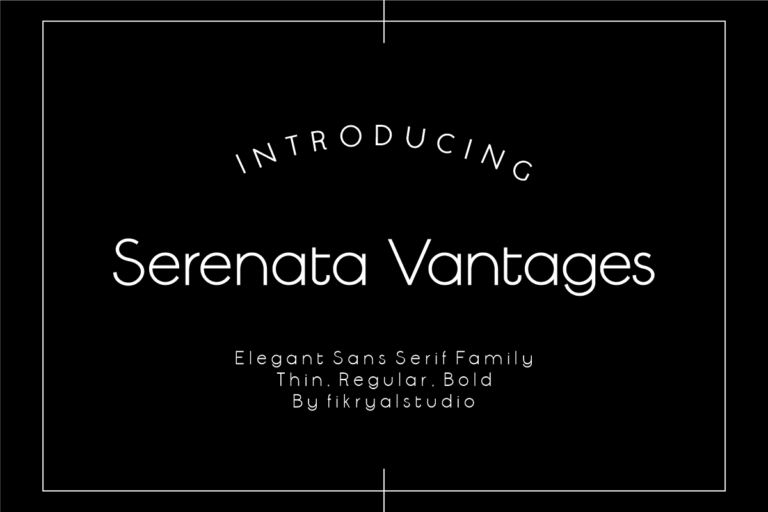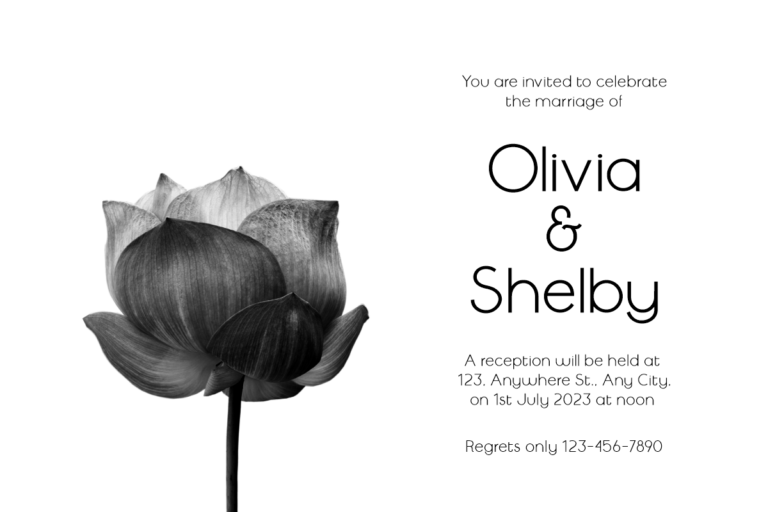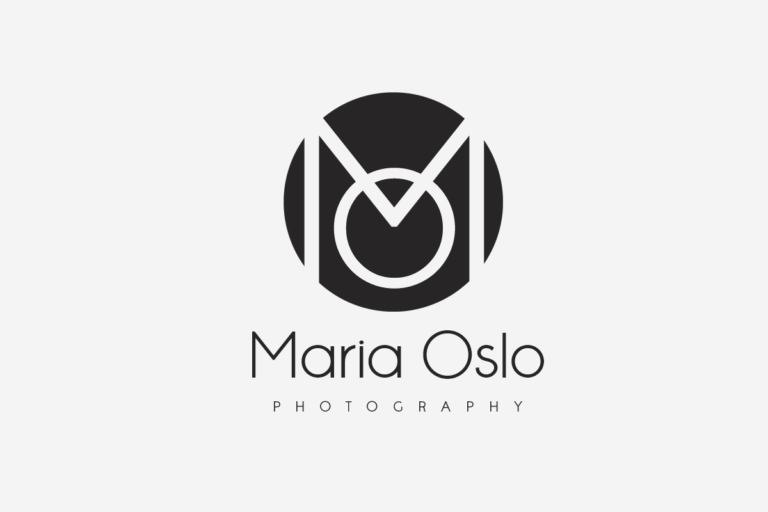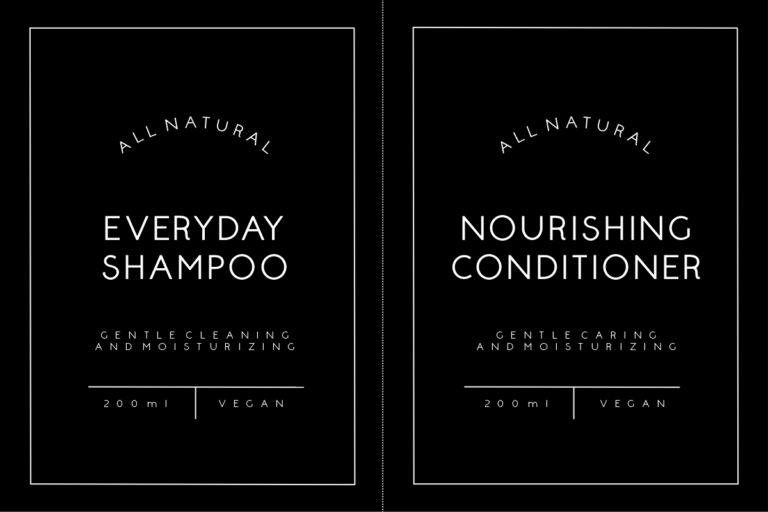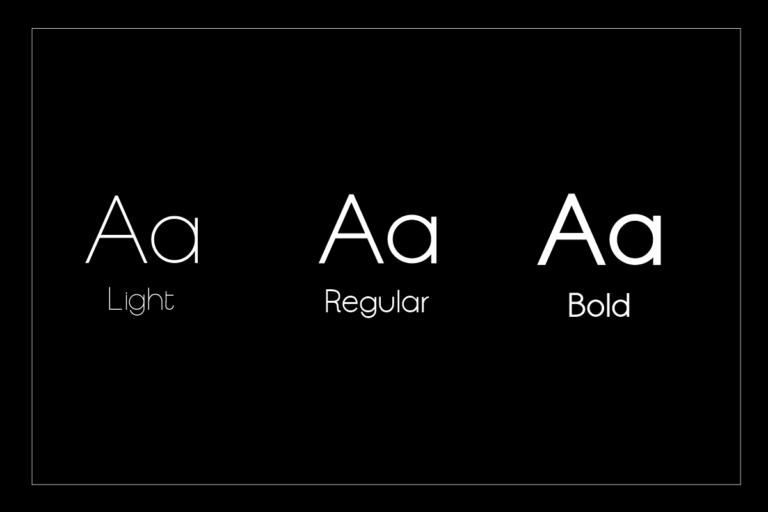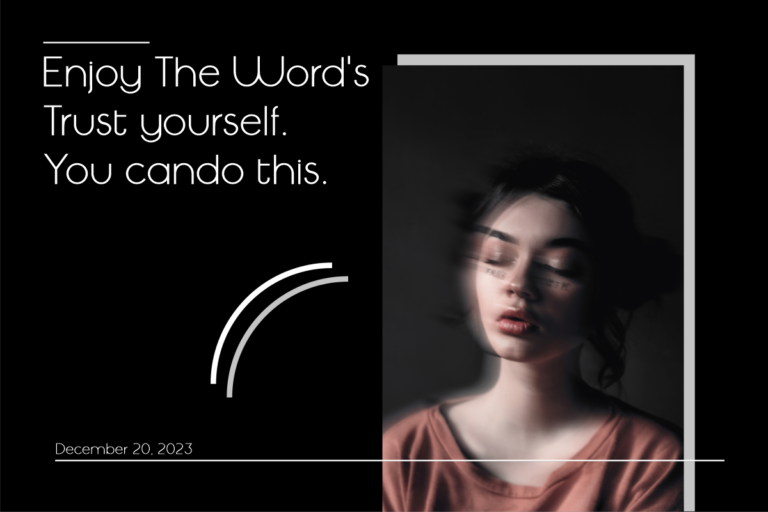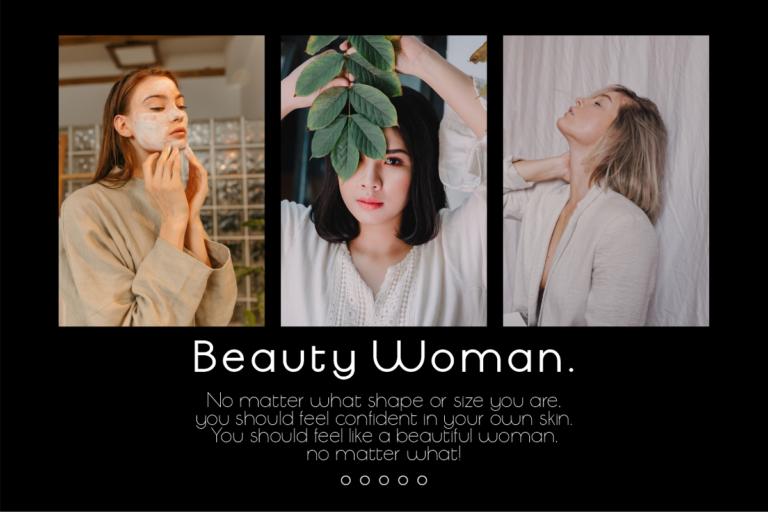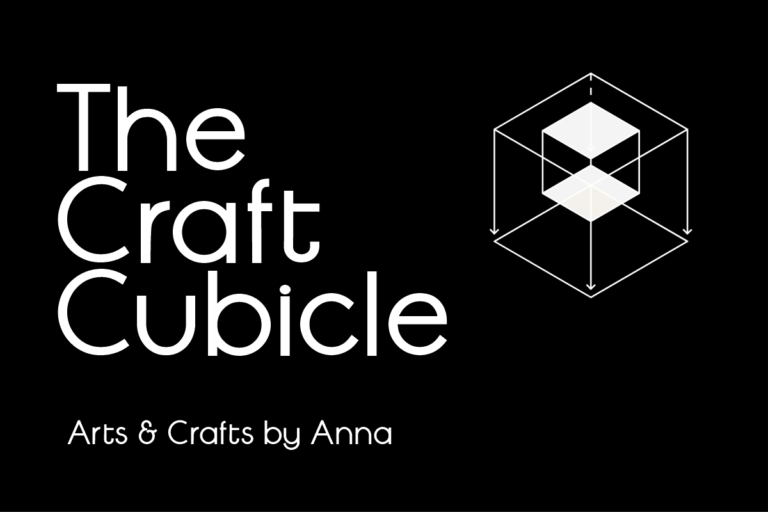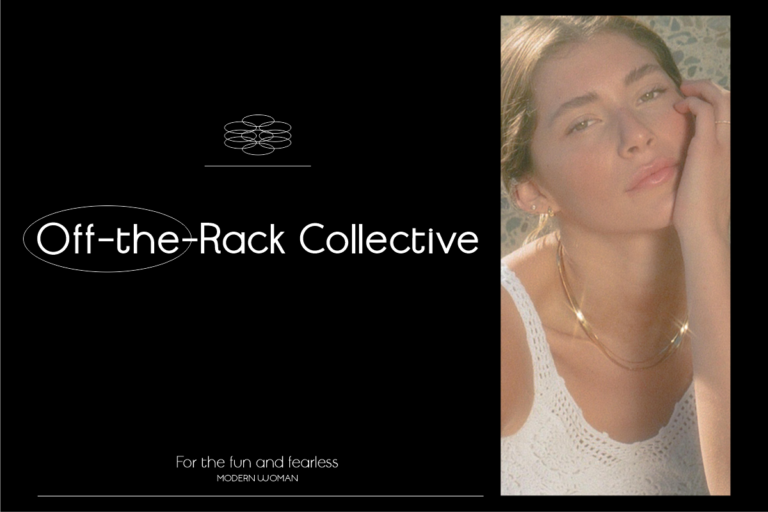
- Serenata Vantages – Elegant Sans
Serenata Vantages is a sophisticated and elegant sans-serif font that exudes modernity and refinement. With its clean lines and well-proportioned letters, this font is perfect for a wide range of design projects, from branding and advertising to editorial and web design.
The font features a range of weights, from thin to bold, giving you the flexibility to create both delicate and bold designs. The characters are beautifully crafted with subtle curves and angles, creating a sense of fluidity and balance.
Serenata Vantages is perfect for designs that require a touch of class and sophistication, such as luxury branding, high-end fashion, and editorial publications. It is also ideal for websites and digital interfaces that need a modern and clean look.
Overall, Serenata Vantages is an elegant and versatile font that can elevate your designs to new heights, making it a must-have for any designer’s toolkit.